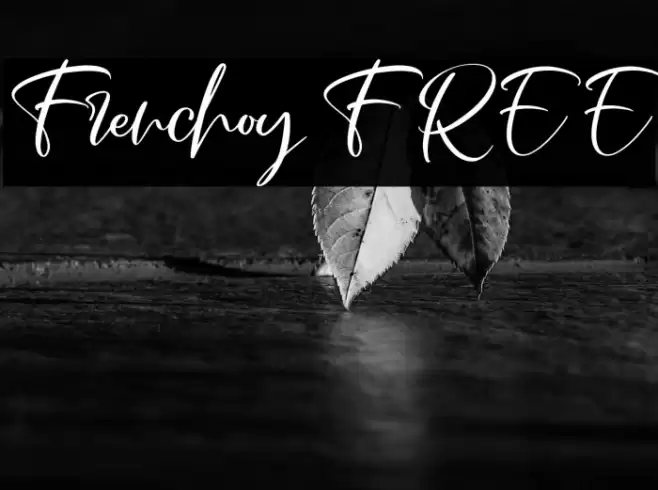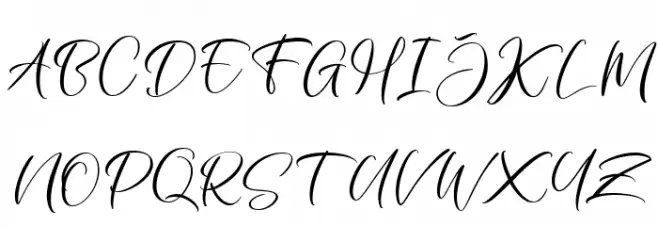
Frenchoy FREE Font
Frenchoy FREE Description
This font exudes a sophisticated and elegant handwritten style, characterized by its fluid and cursive letterforms. The uppercase letters are gracefully elongated with smooth curves, while the lowercase letters maintain a consistent flow with a slightly more pronounced slant. The strokes are varied, with some letters featuring thin, delicate lines and others showcasing thicker, more pronounced strokes, adding a dynamic contrast. The overall appearance is both artistic and refined, making it suitable for projects that require a touch of elegance and personal flair. The font's unique style is perfect for creating visually appealing designs that stand out.
A sophisticated, elegant handwritten font with fluid, cursive letterforms and dynamic contrast from Regular fonts.
- Proposed Projects: Ideal for wedding invitations, branding, greeting cards, and elegant logo designs.
- Overall Style: Elegant, Artistic
- Use Case: Logos, Invitations, Branding